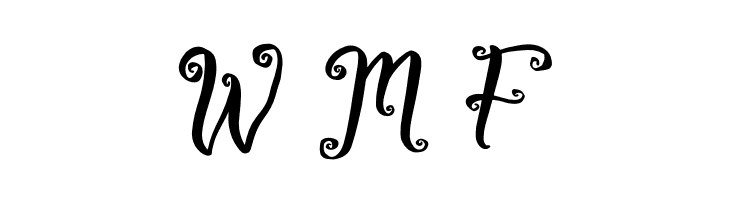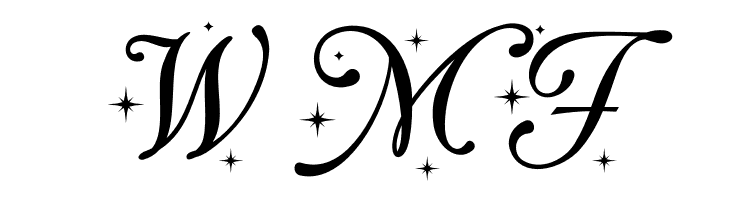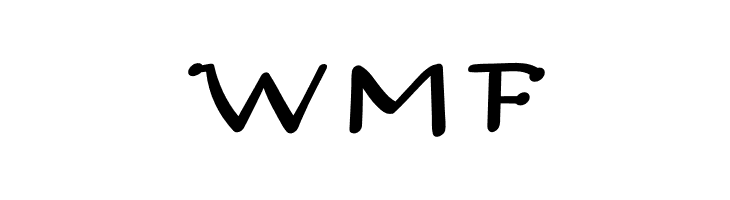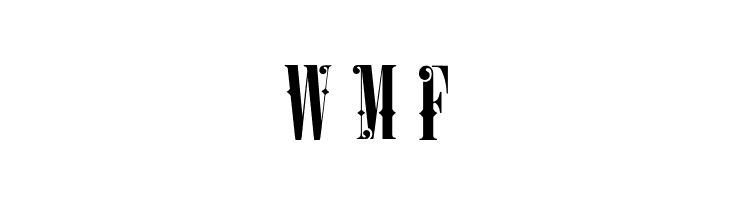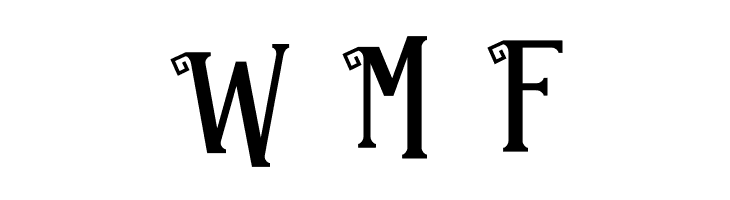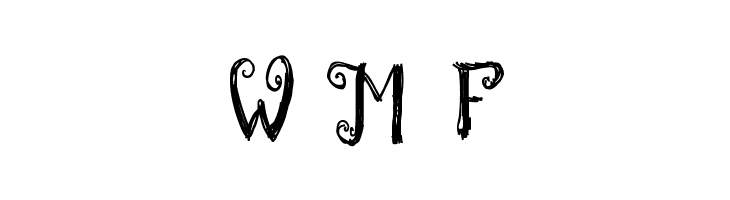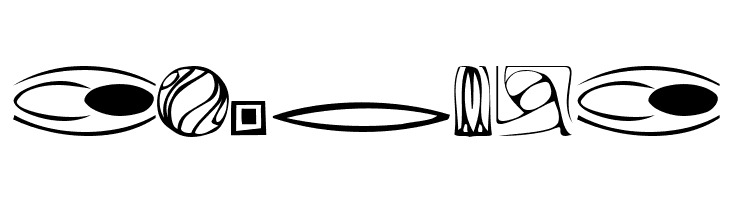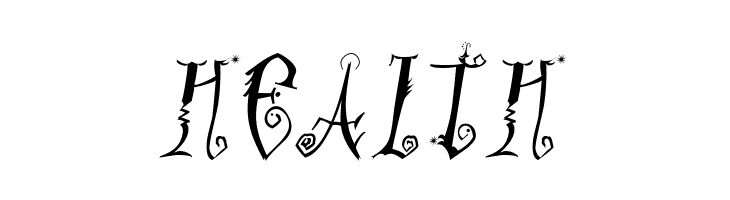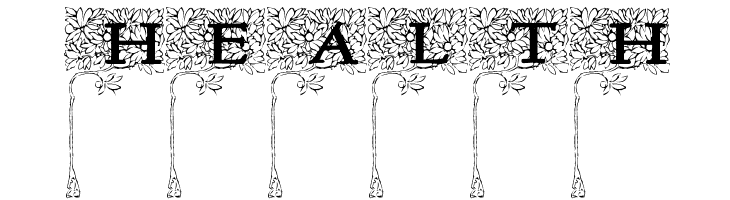
A romantic, heart-embellished cursive font with an elegant italic style.
A decorative font with circular embellishments and high contrast strokes.
A whimsical and decorative font with curly embellishments and playful style.
A playful, handwritten font with whimsical embellishments and medium contrast.
A collection of decorative swashes and flourishes with intricate loops and curves.
An ornate, festive font with decorative flourishes and holiday-themed embellishments.
A decorative, gothic-inspired font with diamond embellishments and bold, intricate details.
A decorative script font with star embellishments, perfect for festive designs.
A playful, handwritten font with floral embellishments and bold strokes.
A bold, decorative font with intricate diamond embellishments.
A bold, decorative font with swirling embellishments and artistic flair.
An elegant, flowing script font with artistic loops and playful embellishments.
A decorative and ornate font with bold serifs and intricate embellishments.
An elegant monogram font with floral embellishments, perfect for personalized designs.
A whimsical collection of hand-drawn decorative arrows with intricate designs.
A decorative font with letters inside heart shapes, featuring floral embellishments.
A playful, heart-embellished font with a romantic and whimsical style.
A whimsical and playful font with curly embellishments and bold characters.
A whimsical, decorative font with vine-like embellishments and a hand-drawn appearance.
A whimsical, decorative script font with star embellishments.